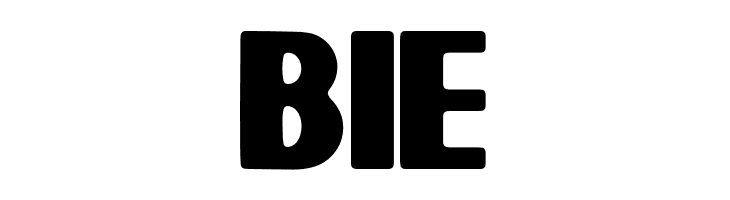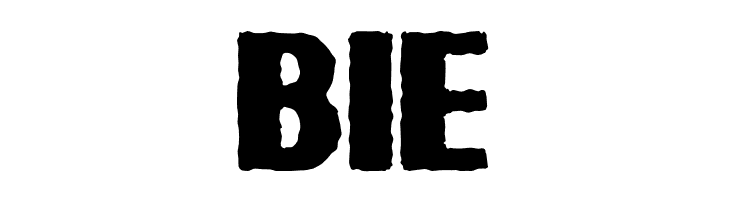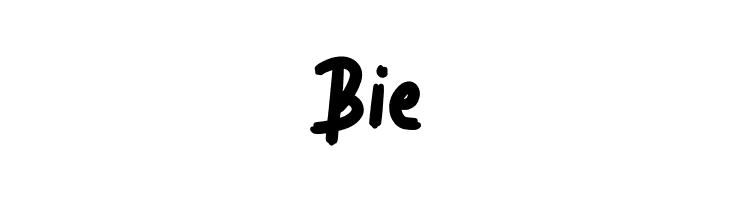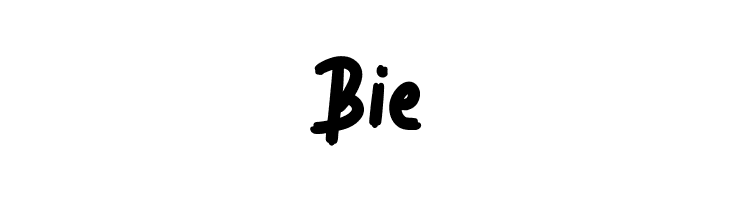
• BardonRoughDemo-Rough
A bold, textured font with a rugged, vintage style.
• BardonRoundedDemo-Rounded
A bold, rounded font with a modern and approachable style.
• Bare Bones
A playful, bold font with thick, rounded outlines and a cartoonish style.
• bare knuckle fight
A bold, geometric font with angular shapes and thick strokes, ideal for headlines.
• Bare Marker Bold
A bold, playful font with a hand-drawn marker style.
• Bare Marker Light
A casual, handwritten-style font with smooth, flowing strokes and a dynamic slant.
• Bare Marker Regular
A bold, handwritten font with a marker-like appearance and smooth, rounded characters.
• Bare Riddim Regular
A bold, geometric font with a modern and edgy style.
• Barecy FREE
A bold, playful handwritten font with thick strokes and a casual style.
• BarecyFREE
A bold, playful handwritten font with thick strokes and a casual style.